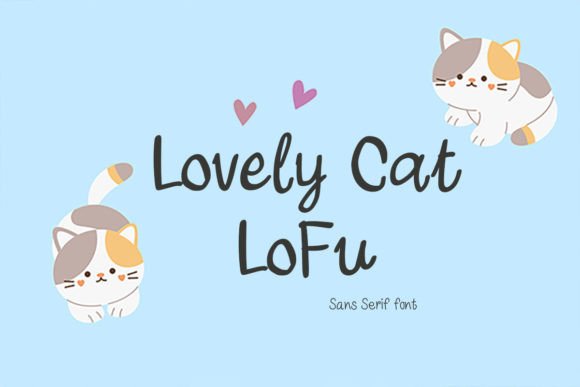
Step into the whimsical world of Lovely Cat Lofu Font, a delightful sans serif font crafted with love and playfulness. This remarkable font family captivates hearts with its charming and cheerful style, adding a touch of magic to all your creative endeavors. Whether you're crafting a heartfelt love letter, designing wedding invitations, or adding a dash of joy to your digital designs, Lovely Cat Lofu Font is the perfect choice.
Immerse yourself in the font's enchanting aura as you explore its diverse range of characters. Each letter and symbol dances with a unique personality, adding a touch of whimsy and wonder to your projects. From playful curves to expressive strokes, Lovely Cat Lofu Font breathes life into your words, transforming them into works of art. Its delightful details and captivating rhythm will leave an unforgettable impression on all who encounter it.
Unleash your creativity with Lovely Cat Lofu Font, the ultimate font for expressing love and joy. Its versatility knows no bounds, making it the perfect companion for a myriad of projects. Whether you're designing greeting cards that spread warmth and cheer, creating posters that radiate positivity, or personalizing T-shirts with heartwarming messages, this font will elevate your designs to new heights.
With its vibrant energy and captivating style, Lovely Cat Lofu Font will transform your ordinary projects into extraordinary expressions of love. Join the growing community of creatives who have discovered the magic of this enchanting font and embark on a creative journey like no other. Let Lovely Cat Lofu Font be your muse, inspiring you to create designs that touch hearts and spread joy wherever they go.